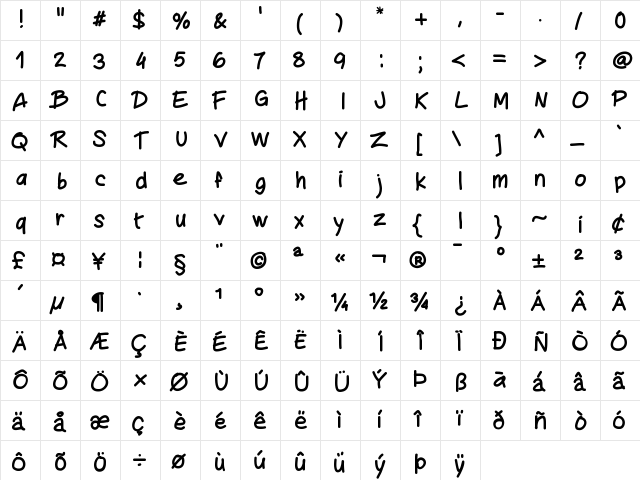
Mywriting Medium
Design Context for Mywriting Typeface
Mywriting is a composed and adaptable typeface that performs quietly and consistently across a wide range of design contexts.